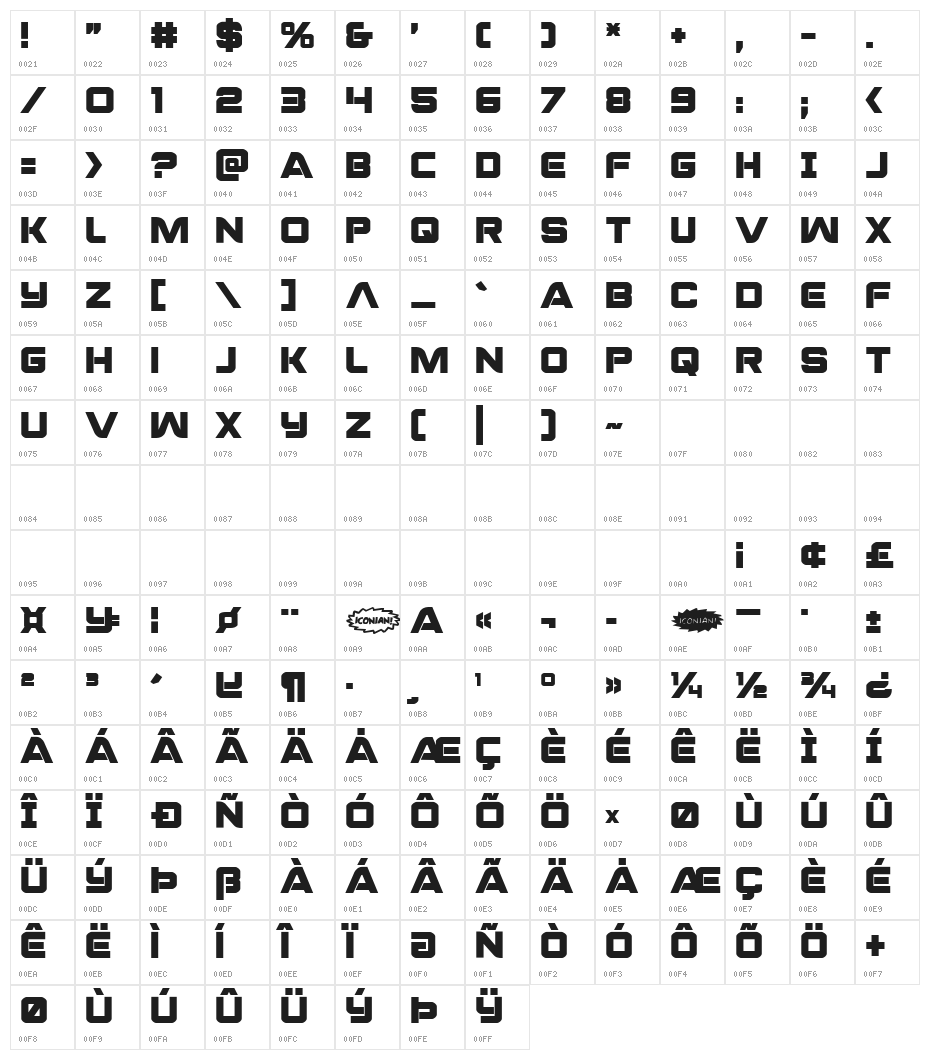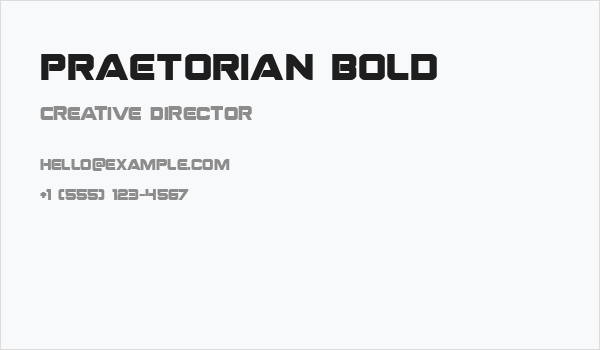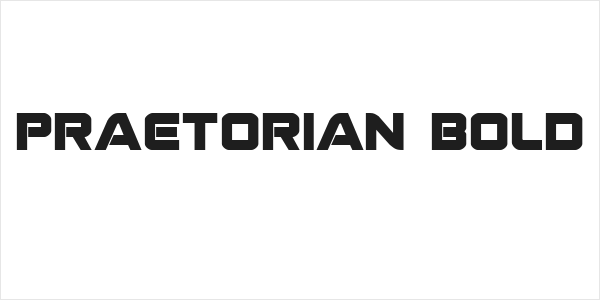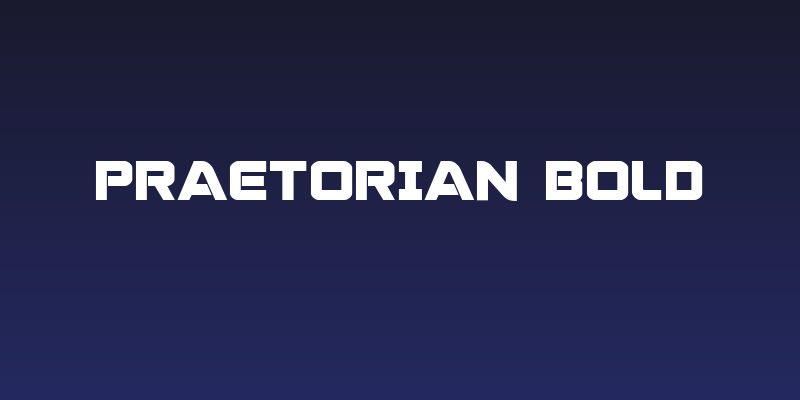
Praetorian Bold Font
Praetorian Bold Description
This font exhibits a bold and commanding presence, characterized by its strong geometric shapes and clean lines. The uppercase letters are particularly striking, with a uniform thickness that conveys a sense of stability and strength. The numerals and special characters maintain this robust style, ensuring consistency across all glyphs. The font's design is modern and slightly futuristic, making it suitable for projects that require a bold statement. Its clear and legible form makes it ideal for headlines or branding where impact is essential.
| Proposed Projects | Ideal for branding, headlines, posters, and any design requiring a strong visual impact. |